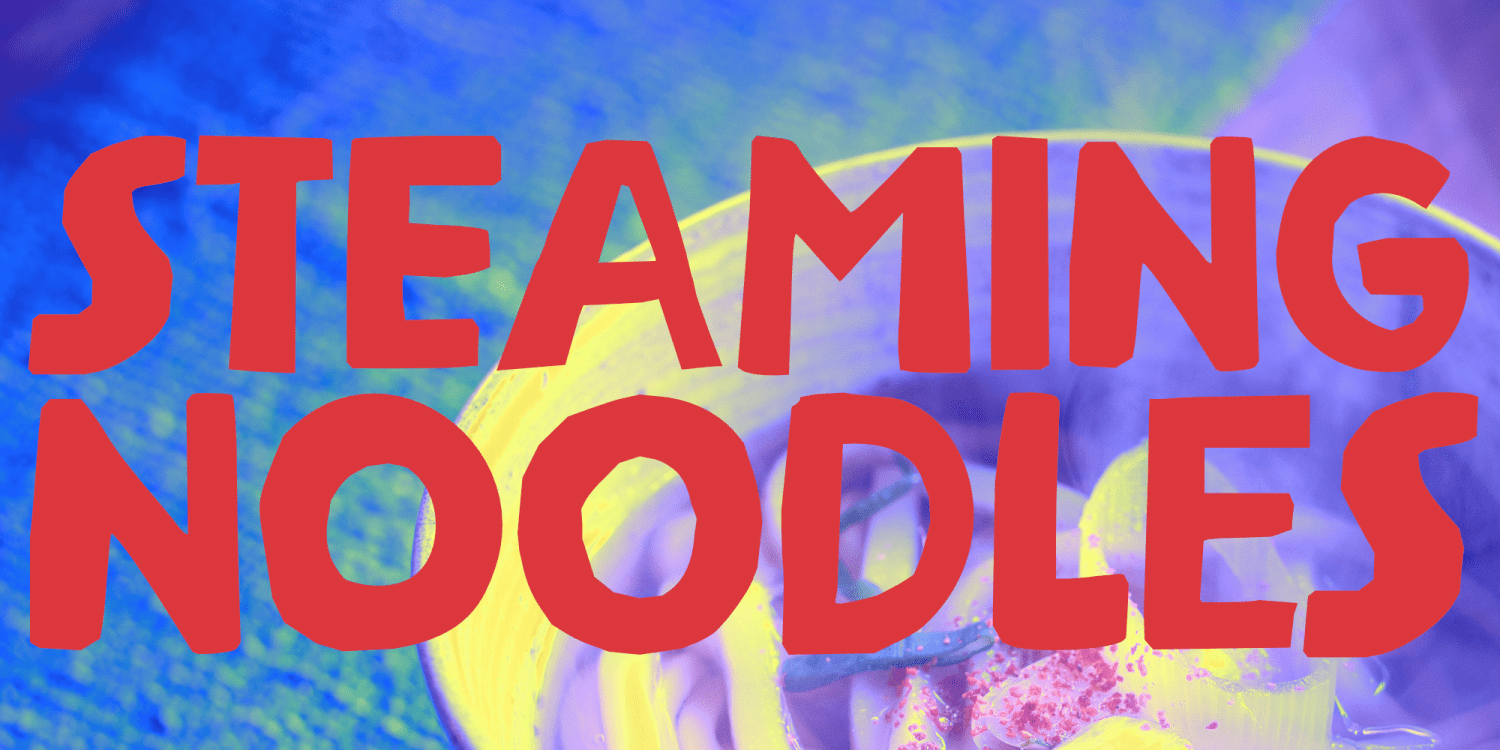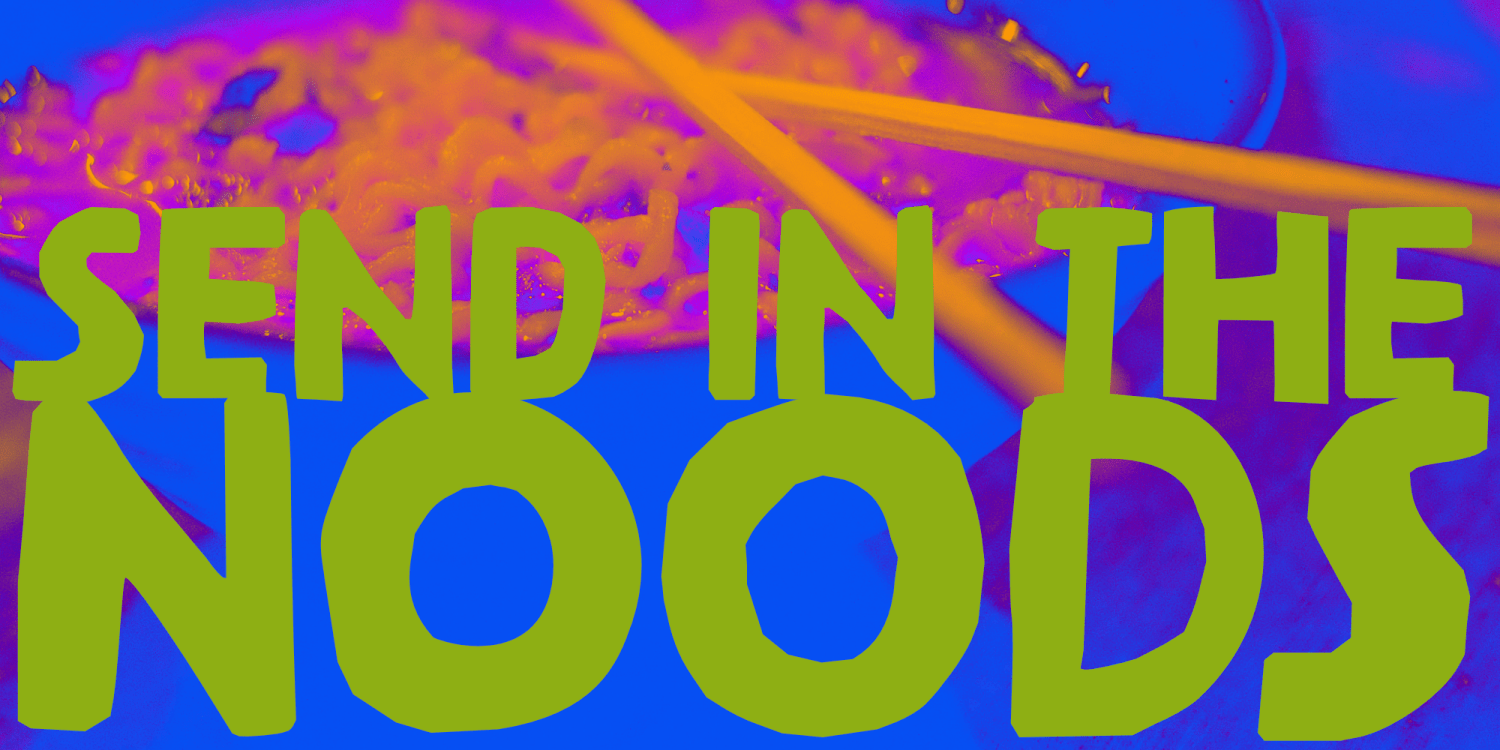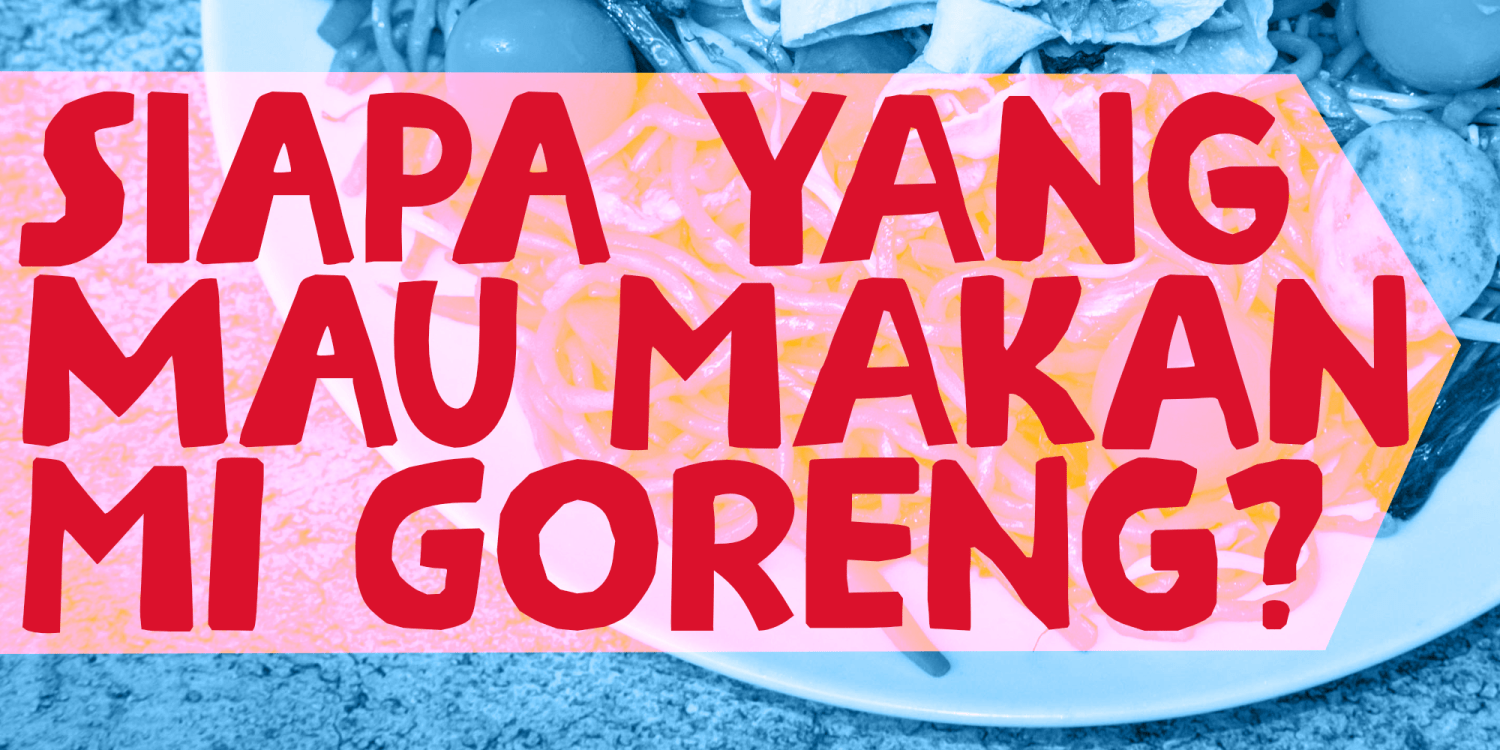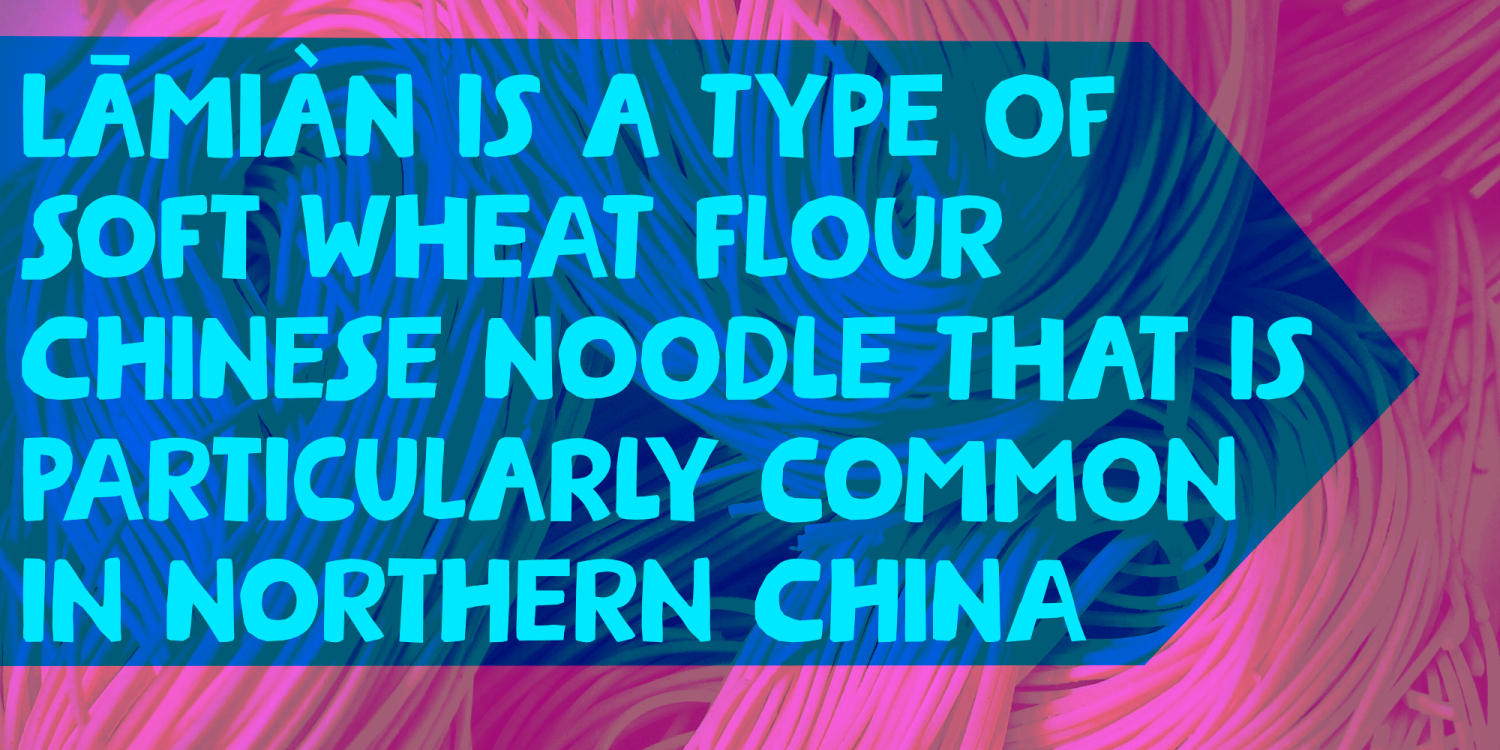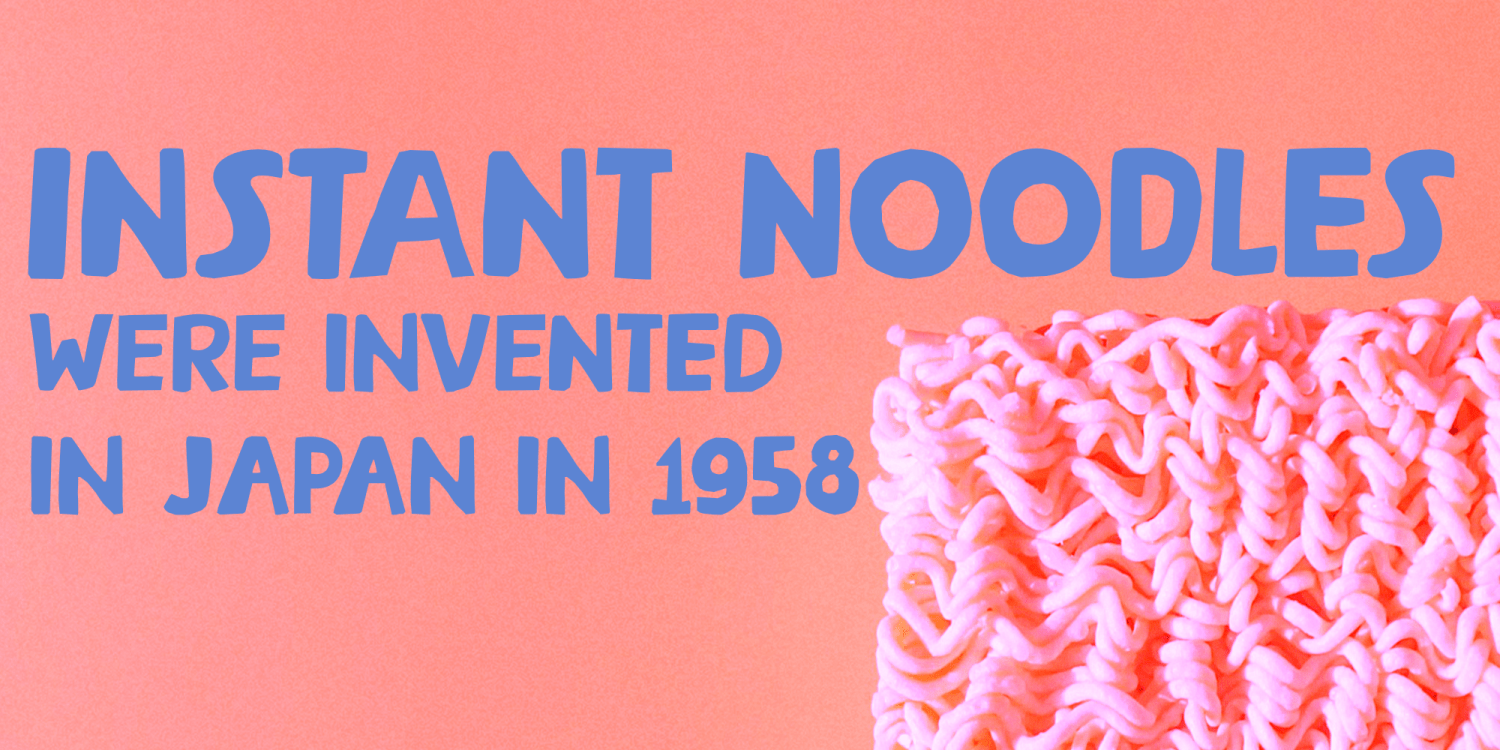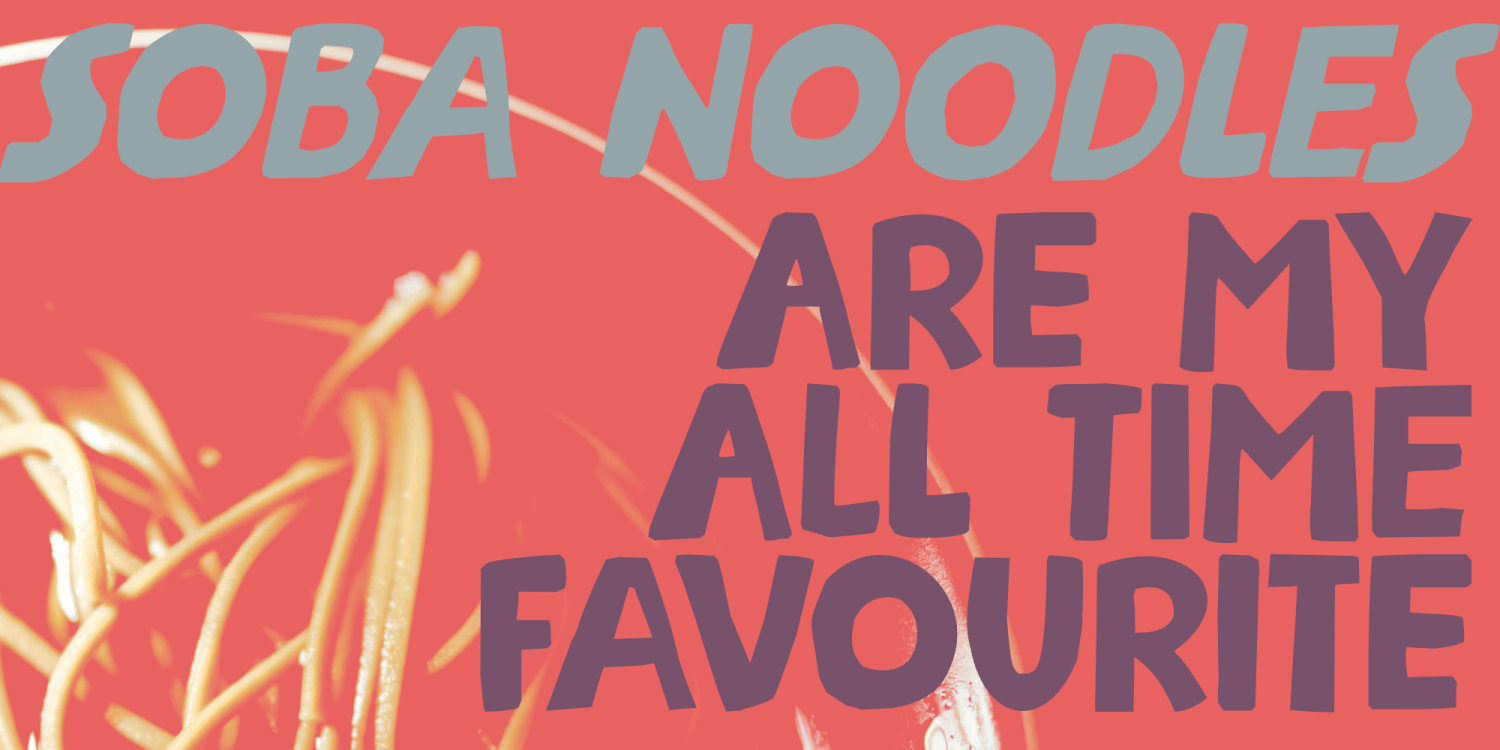
Steaming Noodles
I am in Japan right now, guiding a tour group. At night I usually eat a bowl of steaming noodles; soba, udon, ramen - whatever is available! I just love noodles! When I was working on this font, I was probably craving some foods, so I called it Steaming Noodles.
Steaming Noodles comes with extensive language support and a nice set of contextual alternates for the lower case letters.